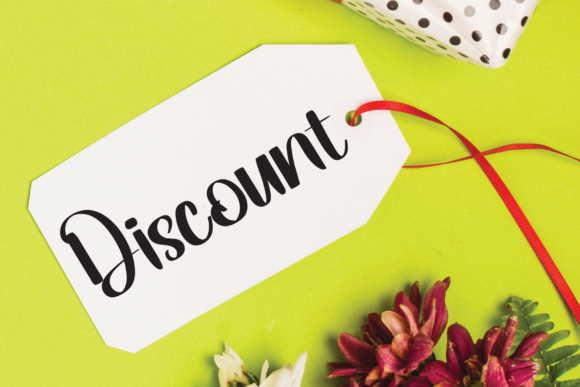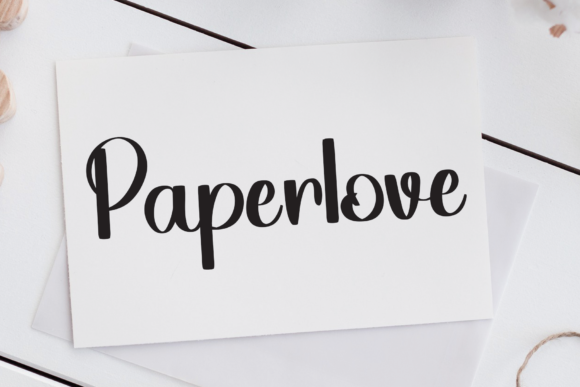
Hiking Font
db-ku.com - Script & Handwritten -- This is a bold and charming handwritten font. It features beautiful curves in each letter. This font is PUA coded, which means you can access all the glyphs and sweeps easily!